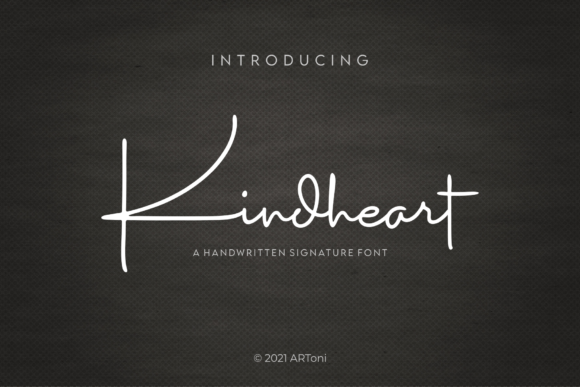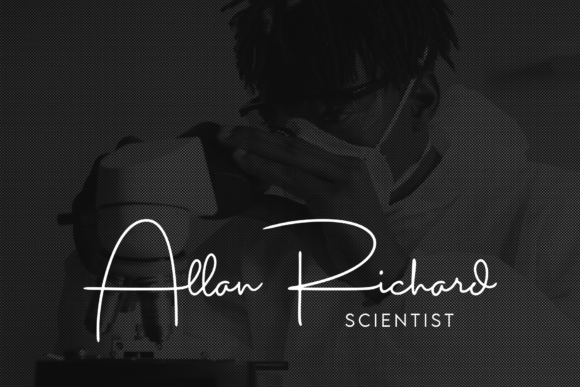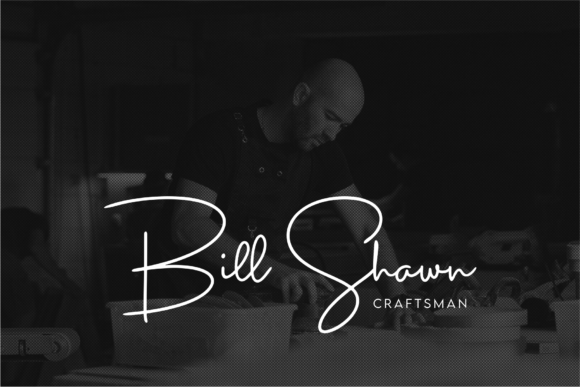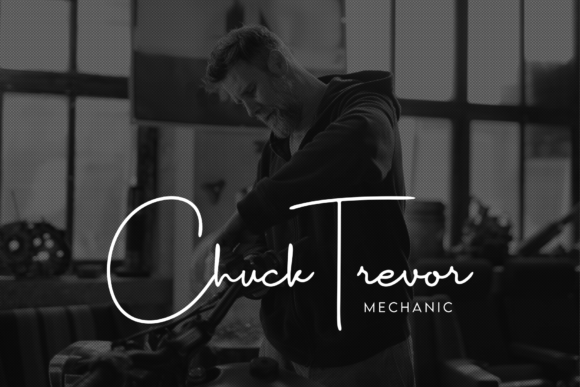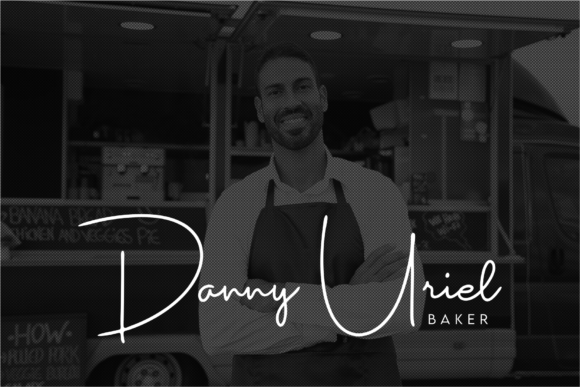
About Kindheart Font
Kindheart is a delicate and flowing calligraphy typeface with characters that dance along the baseline. It will add a luxury spark to any design project that you wish to create!